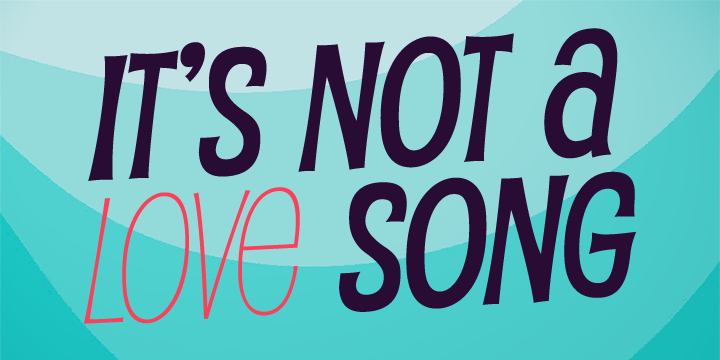
Pupcat
from Larabie
Designed by: Ray Larabie
Designed when: 2001
Pupcat
Pupcat was inspired by posters from 1960s Hollywood comedies. It’s cute, thin and lives for fun.
Dig the OpenType features: an alternate A, E and R, fractions, ordinals, math symbols and class based kerning.